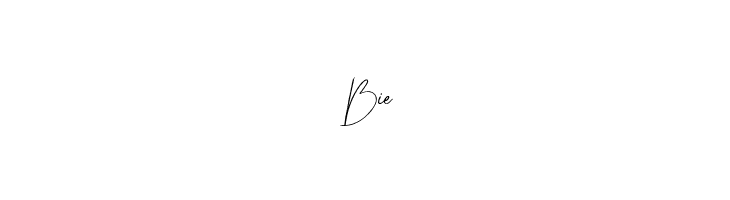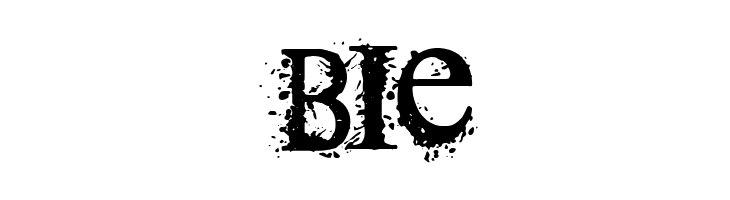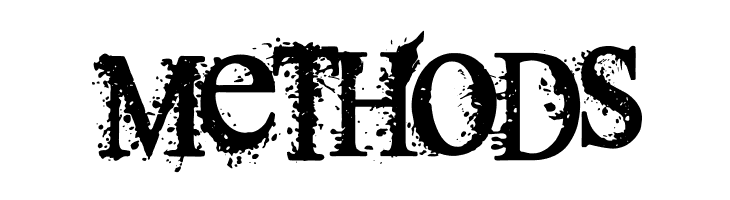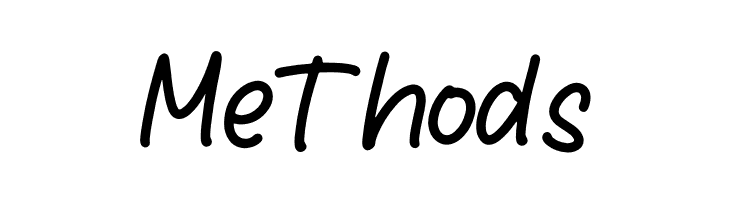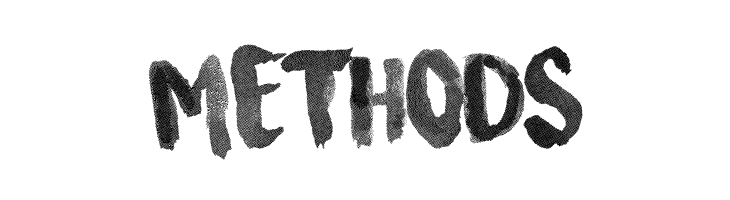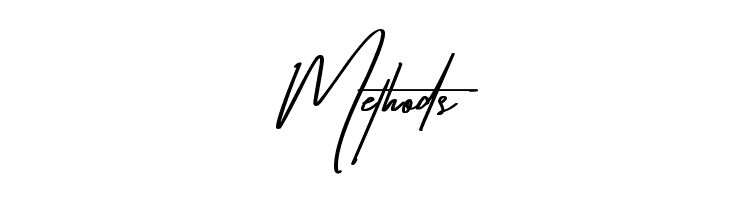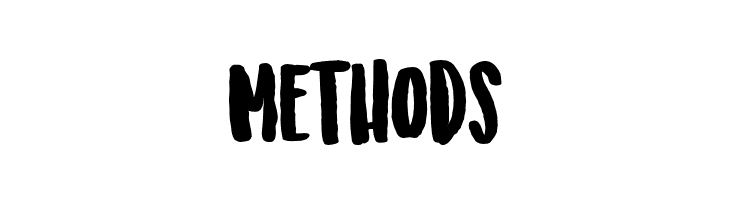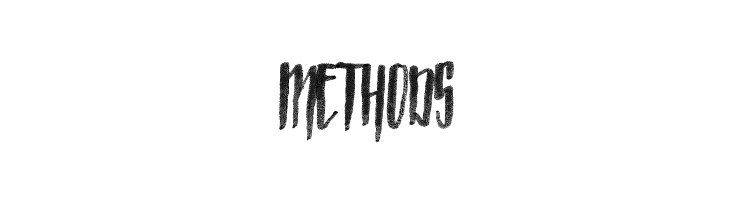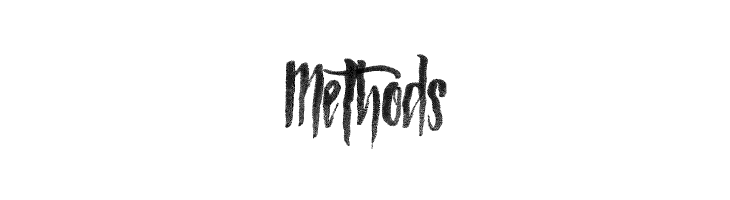
A bold, hand-drawn font with elongated, textured strokes and a dynamic, urban feel.
A bold, textured font with a hand-drawn, graffiti-like style.
A casual, playful handwritten font with smooth curves and a friendly style.
A bold, hand-painted style font with thick, uneven strokes and a playful, dynamic feel.
A bold, brush-style font with an energetic, hand-painted look.
A fluid and expressive handwritten font with elegant cursive strokes.
A decorative script font with elongated, flowing lines and dynamic movement.
A flowing, handwritten cursive font with elegant, connected letters.
A delicate, flowing script font with an elegant handwritten style.
A distressed, grungy font with rough, textured edges and a rugged appearance.